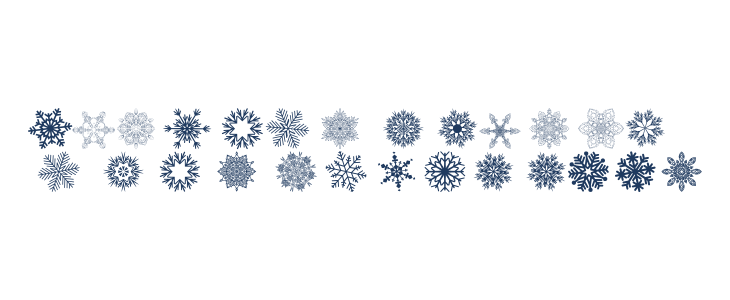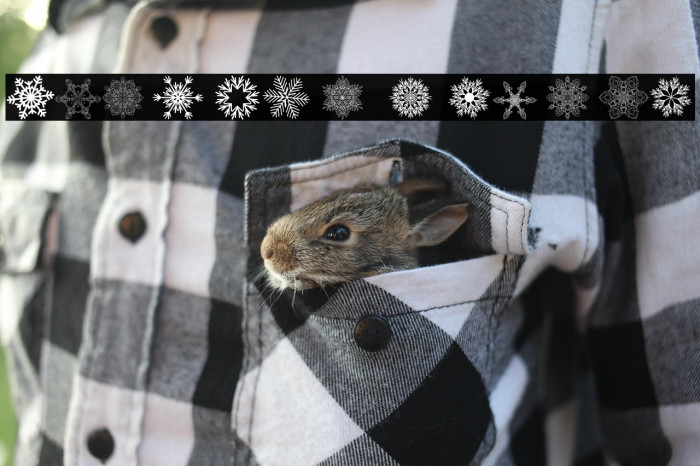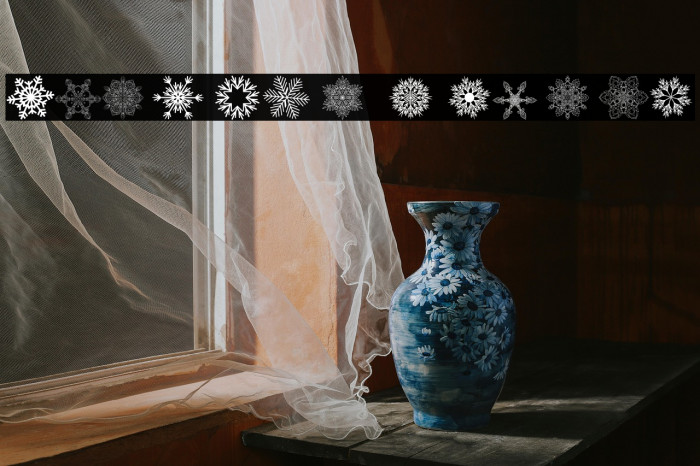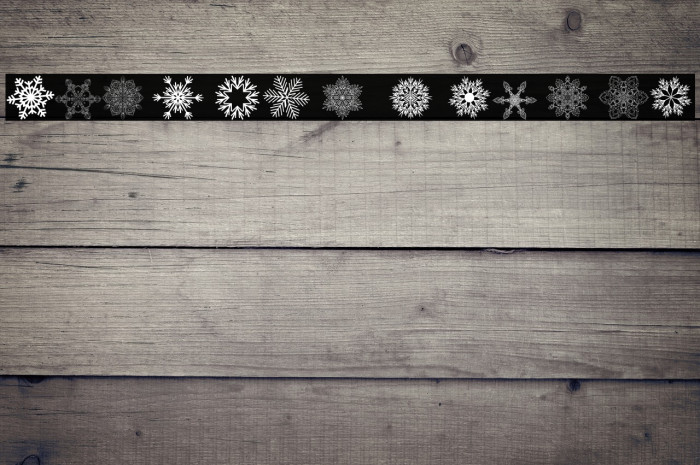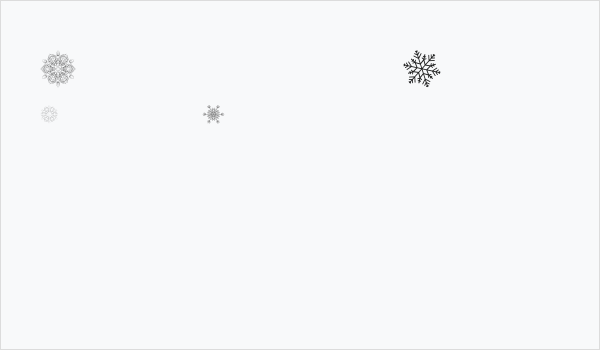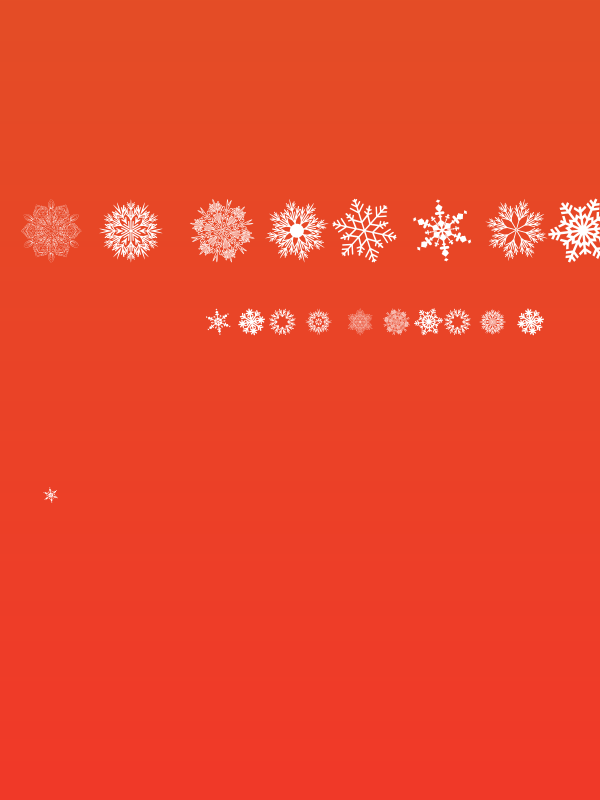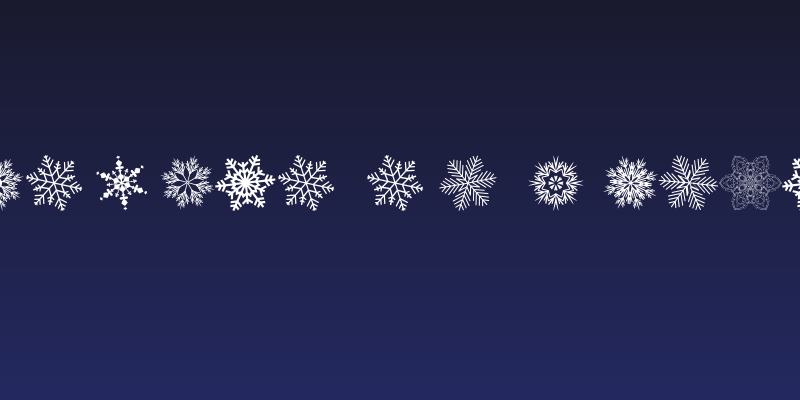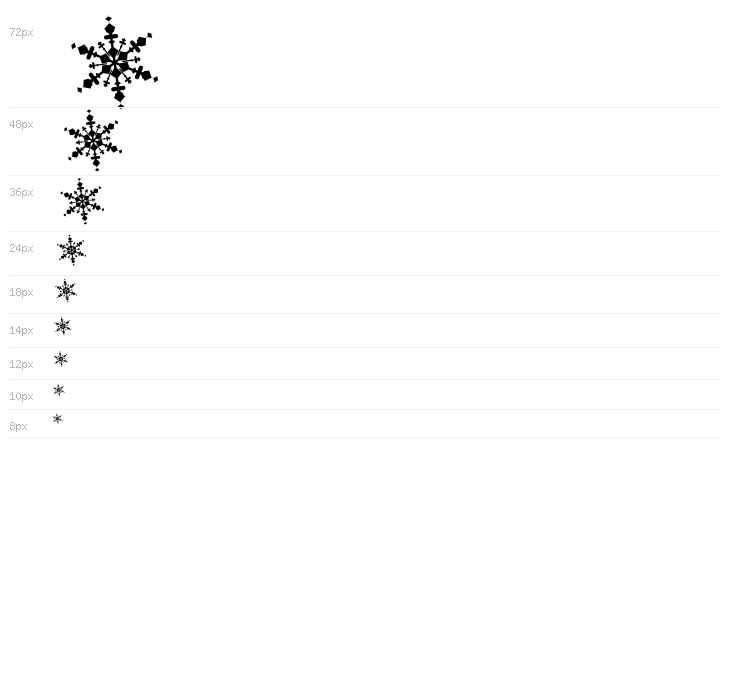
Christmas Snowflakes Font
Christmas Snowflakes Description
A decorative set of intricate snowflake glyphs, each with unique symmetrical patterns, rendered in black and grayscale with varying line weights and levels of detail.
| Overall Style | Decorative, Festive, Thematic |
| Use Case | Icons, Decorative elements, Themed dividers, Logos |
| Proposed Projects | Holiday cards, winter event invitations, seasonal branding, festive packaging, digital scrapbooking. |